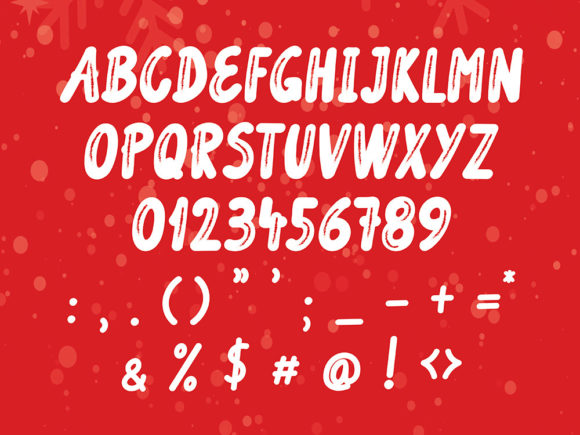
Introduction to Snow Dust Font
Imagine you’re working on a creative project, pouring your heart and soul into it, and the final touches are just a font away. You’re looking for something unique, something that will make your design stand out from the crowd, and that’s when you stumble upon the Snow Dust Font.
This beautiful, simple, and brushed display font is more than just a design resource – it’s a game-changer. With its transparent background and high-quality design, it’s the perfect addition to any creative project. Whether you’re working on a branding project, a digital design, or a print layout, Snow Dust Font has the potential to elevate your work and make it truly unforgettable.
Key Features of Snow Dust Font
- High-quality, elegant design ideal for creative projects requiring a touch of sophistication.
- Comes with a transparent background, making it easy to layer over images or use as a design resource.
- Supports a wide range of languages, including Latin, Cyrillic, and Greek alphabets.
- Unique characteristics include subtle texture and nuanced color gradations, adding depth and visual interest to designs.
- Perfect for designers seeking a stylish, high-quality font for their next creative project.
Honest Review: Snow Dust Font
I recently had the chance to work with the Snow Dust Font and I’m excited to share my honest thoughts. This font is perfect for creative projects that require a unique touch. Its high quality design makes it a valuable addition to any designer’s toolkit.
- ✨ Unique and stylish design that stands out from the crowd
- ✨ High quality, making it perfect for printing and digital use
- ⚠️ Limited character set, which may be a concern for longer texts
- ⚠️ Not ideal for body text, as it can be quite busy and overwhelming
Overall, I was impressed with the Snow Dust Font. It’s a great design resource for anyone looking to add a touch of elegance to their project. With its high quality design and transparent background, it’s perfect for logos, headings, and other design elements. If you’re looking for a unique and stylish font, Snow Dust Font is definitely worth considering.
To get the most out of the Snow Dust Font, try combining it with other design elements, such as graphics and images. You can also experiment with different font sizes and styles to create a unique look.
The Snow Dust Font is perfect for a variety of creative projects, including:
– Blog posts and articles
– Business cards and brochures
– Presentation slides
Alternatives to Snow Dust Font
1. Frodo Font
Frodo Font is a high-quality, elegant script font ideal for creative projects that require a sophisticated and refined look. It features a transparent background, making it perfect for use on dark or textured backgrounds. When to use: Wedding invitations, luxury brand logos, and high-end design materials. Compared to Snow Dust Font, Frodo Font has a more refined and classic feel, while Snow Dust Font is more whimsical and playful.
2. Dazzle Font
Dazzle Font is a versatile and modern sans-serif font that’s perfect for a wide range of creative projects. It’s available for free download and features a high-quality design that’s ideal for use on a transparent background. When to use: Business cards, brochures, and marketing materials that require a clean and modern look. Compared to Snow Dust Font, Dazzle Font is more straightforward and easy to read, while Snow Dust Font is more ornate and decorative.
3. Whimsy Font
Whimsy Font is a playful and creative script font that’s perfect for use on a transparent background. It’s ideal for designers who want to add a touch of personality and whimsy to their projects. When to use: Children’s books, greeting cards, and other design materials that require a fun and playful look. Compared to Snow Dust Font, Whimsy Font is more playful and carefree, while Snow Dust Font is more elegant and refined.